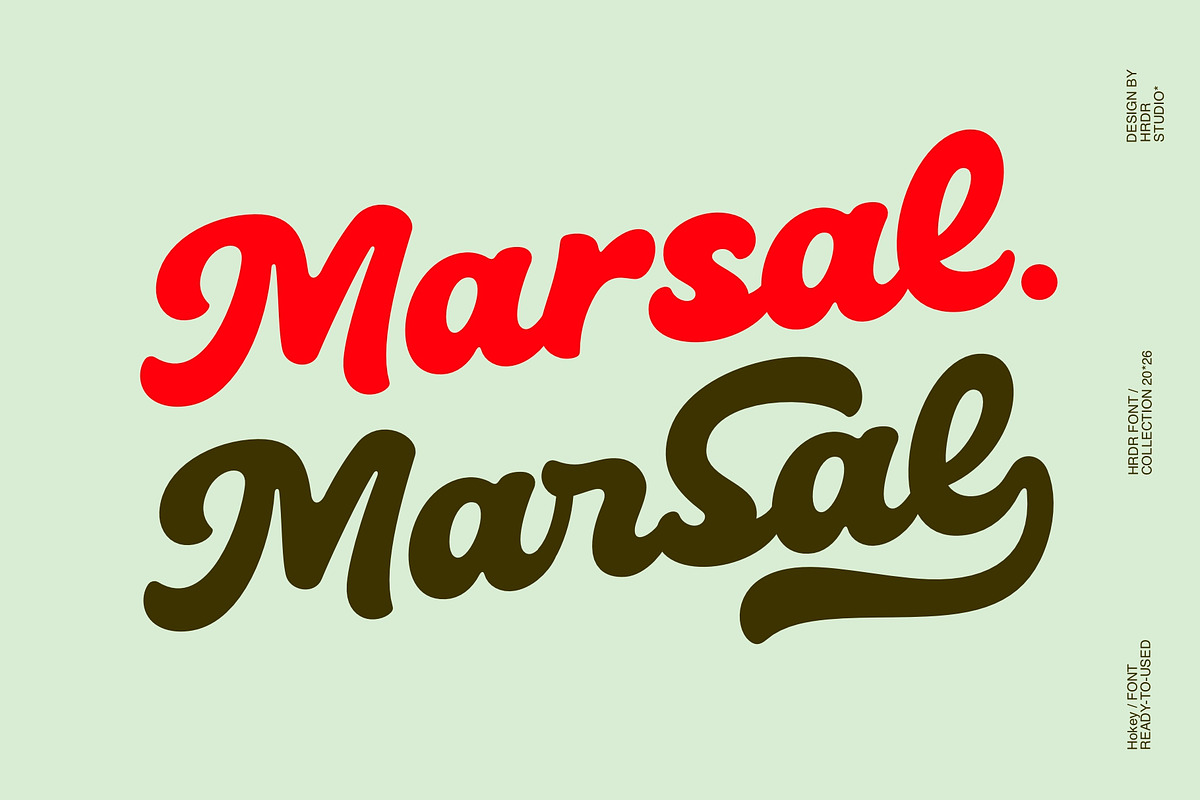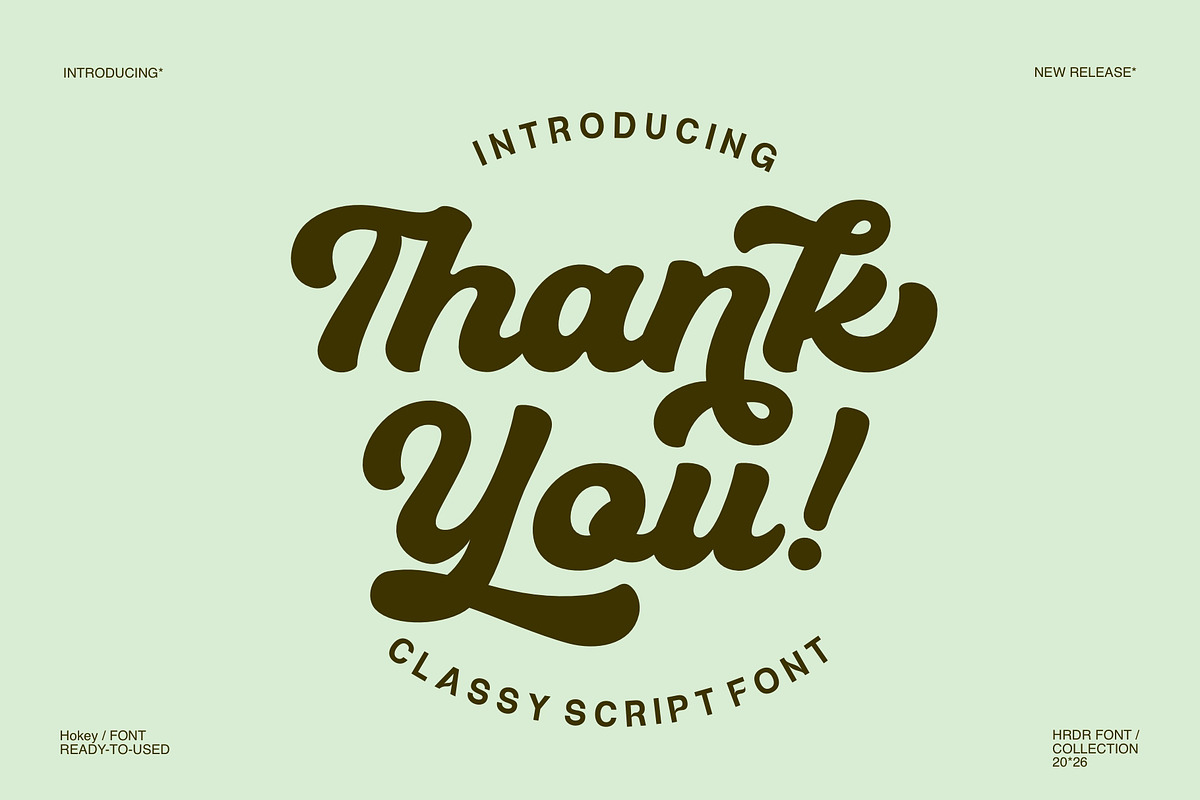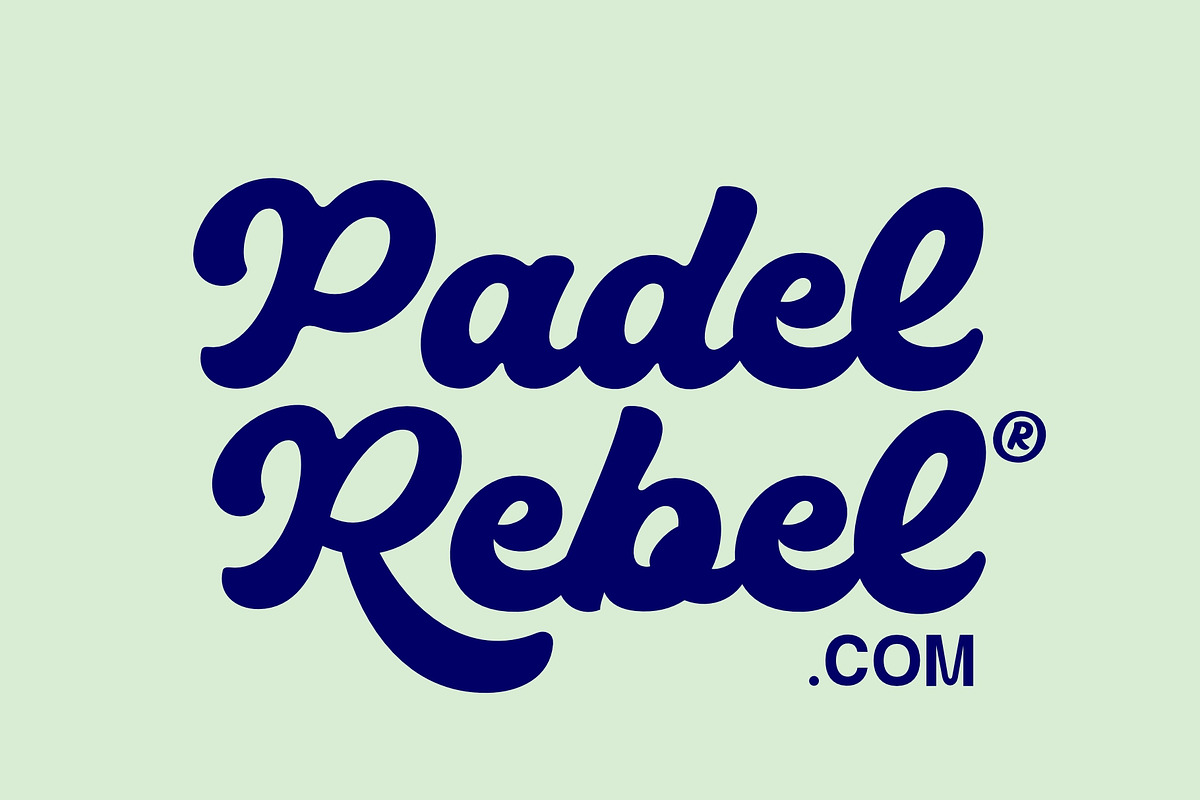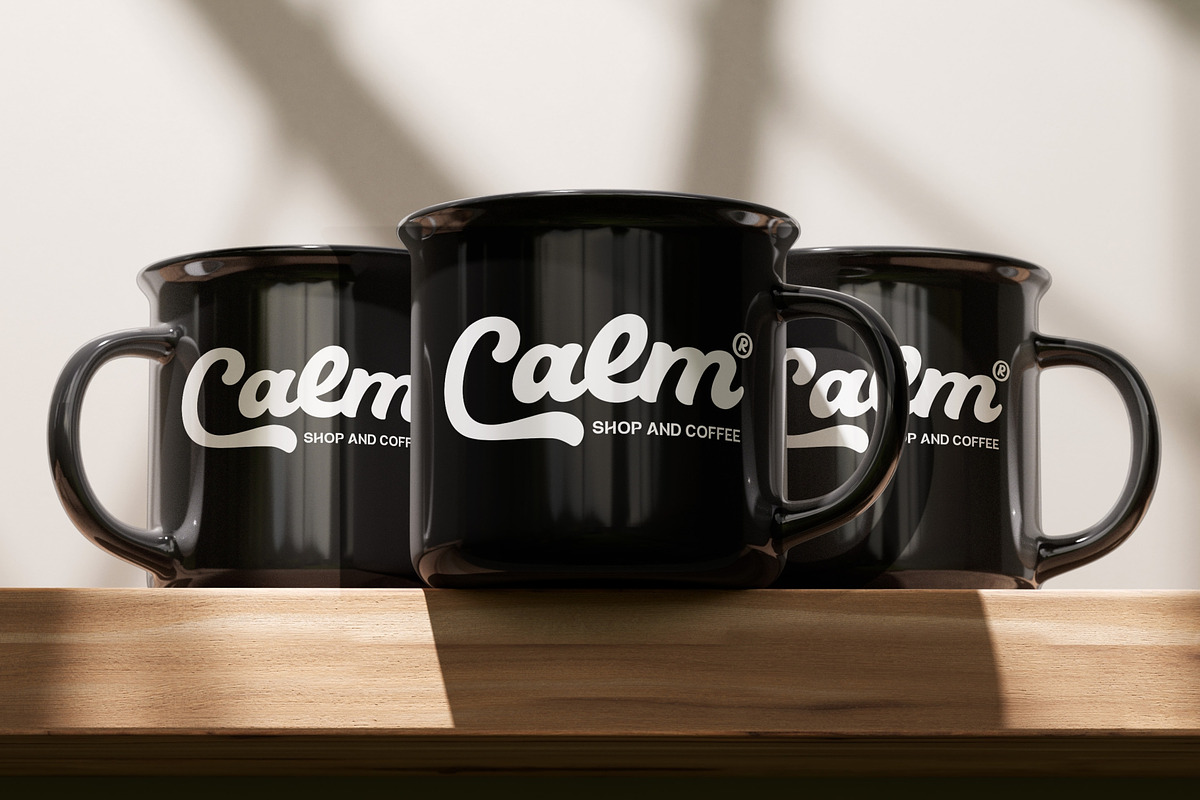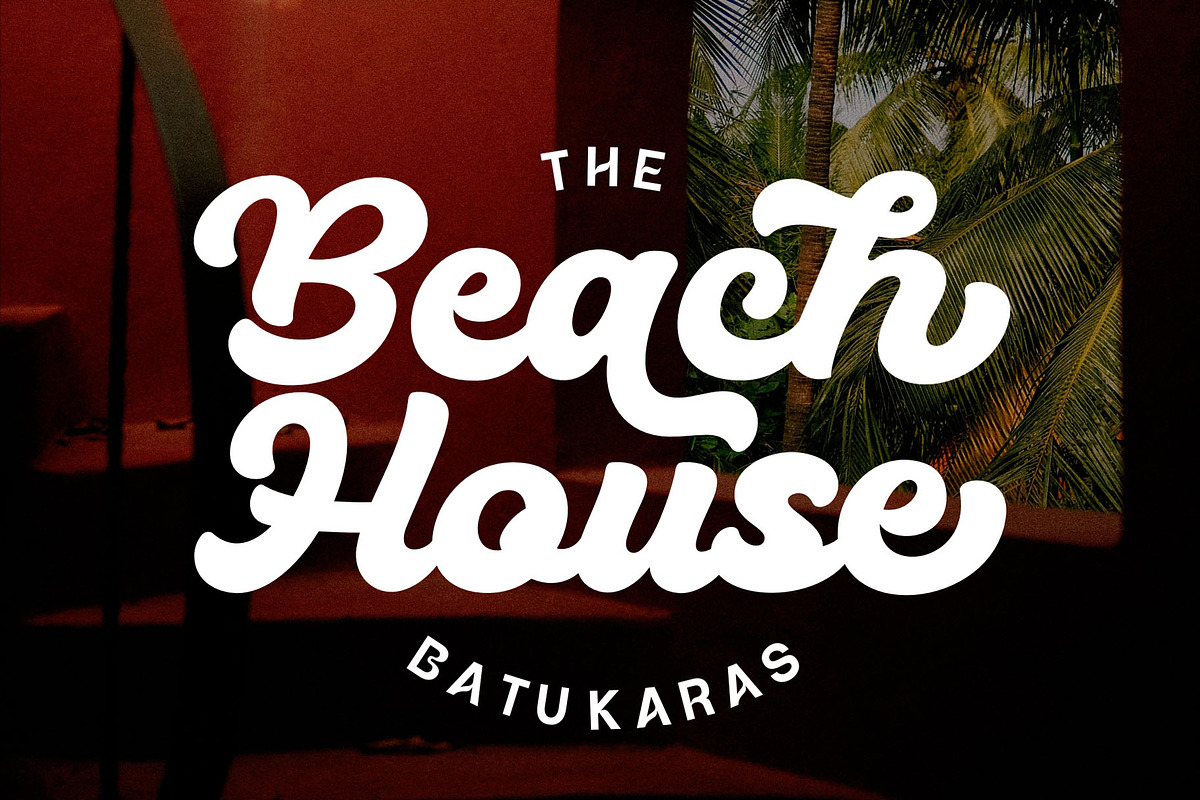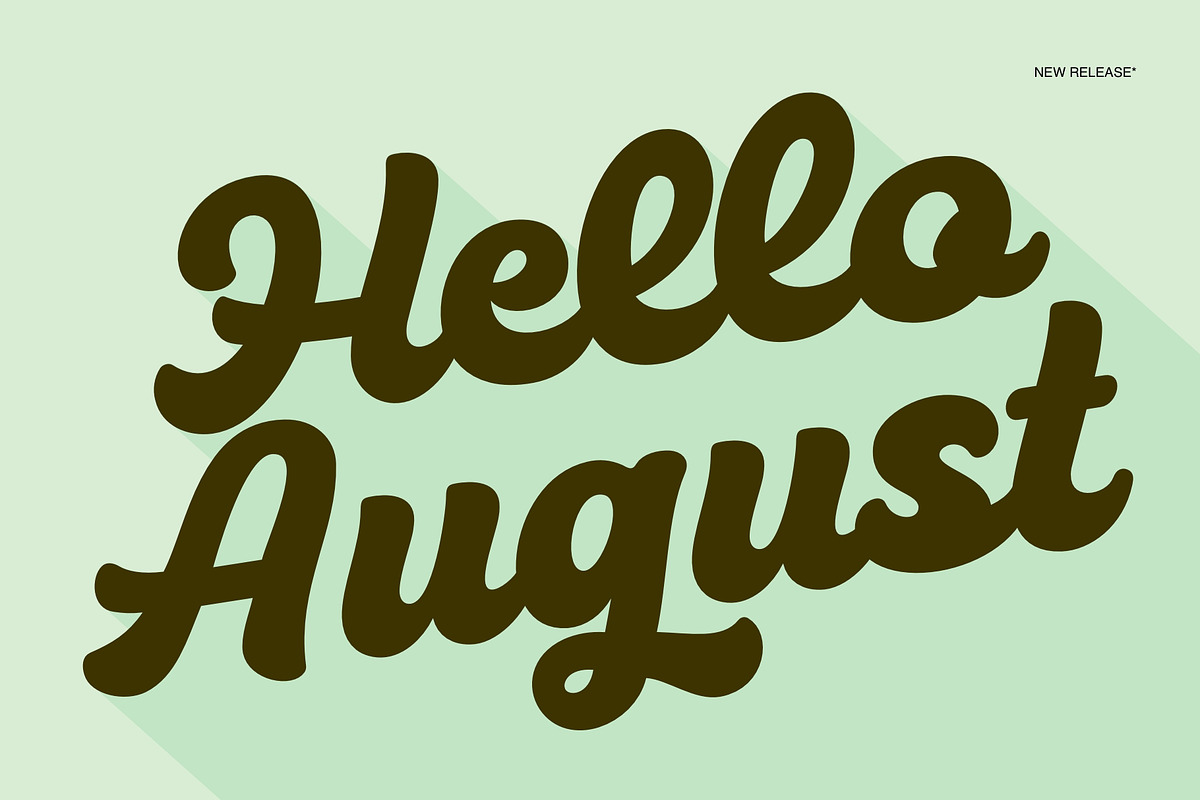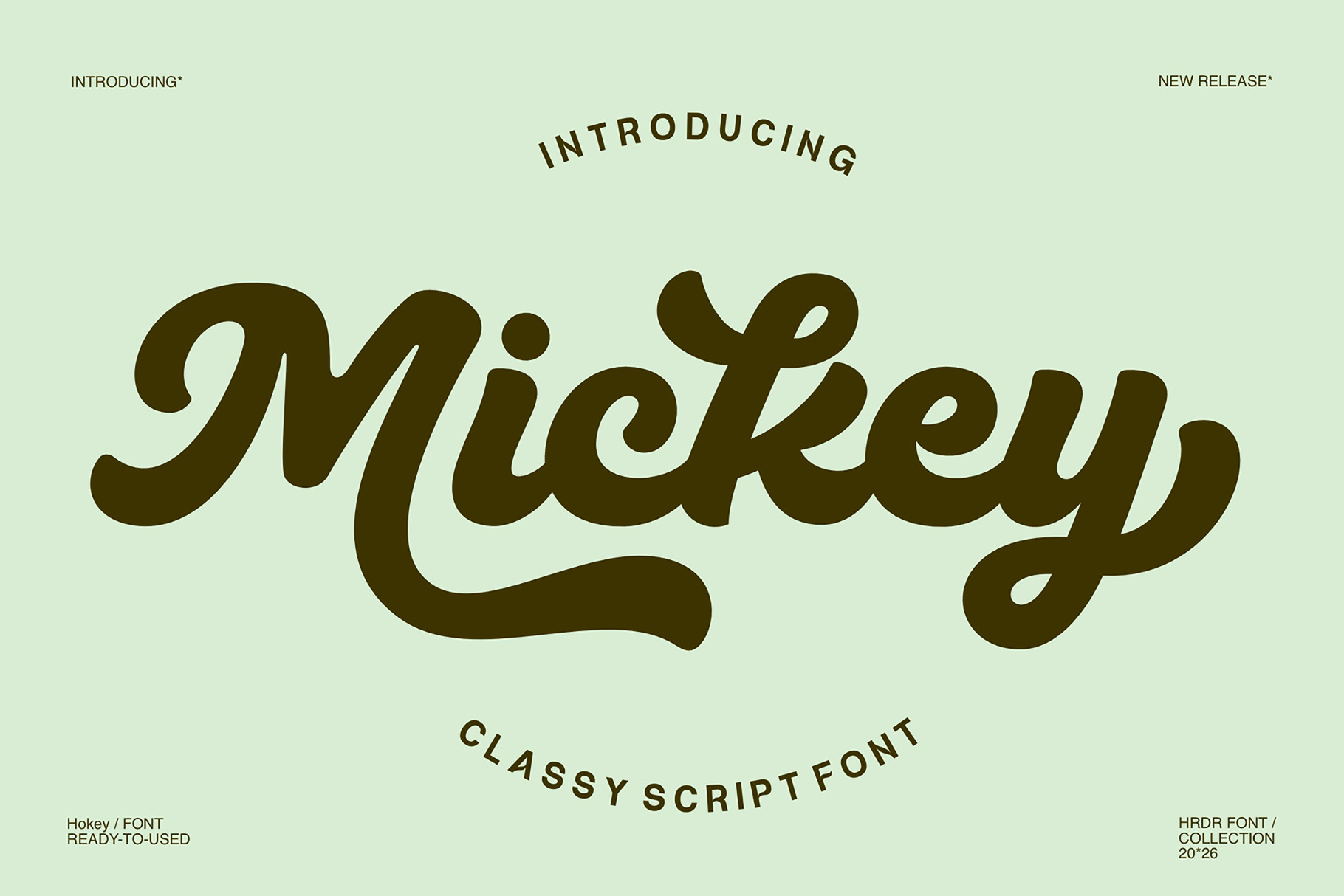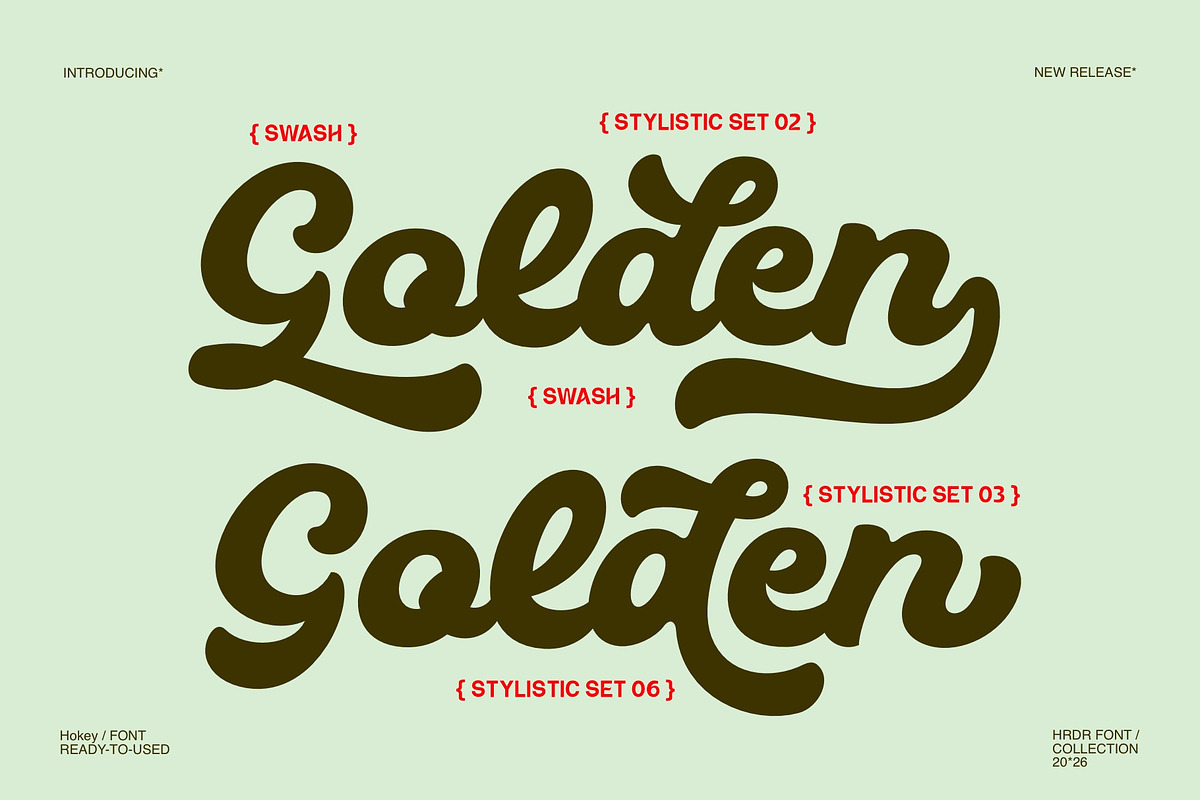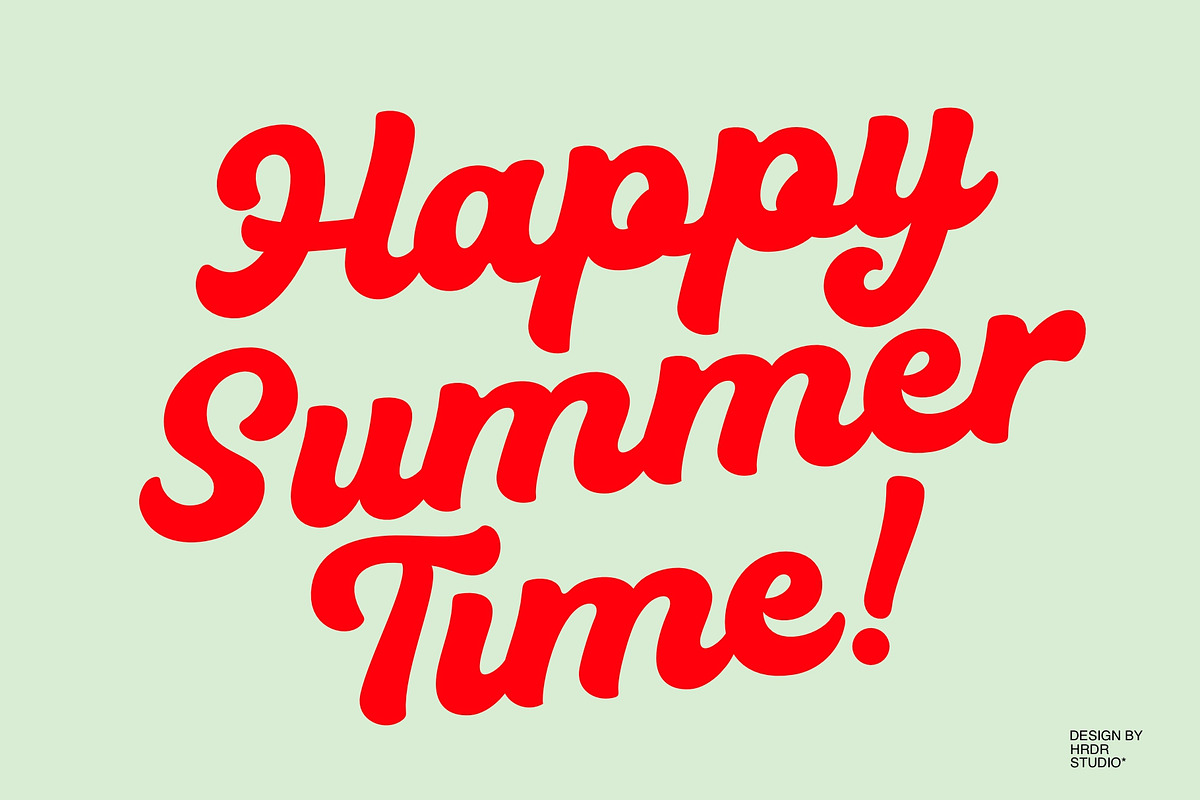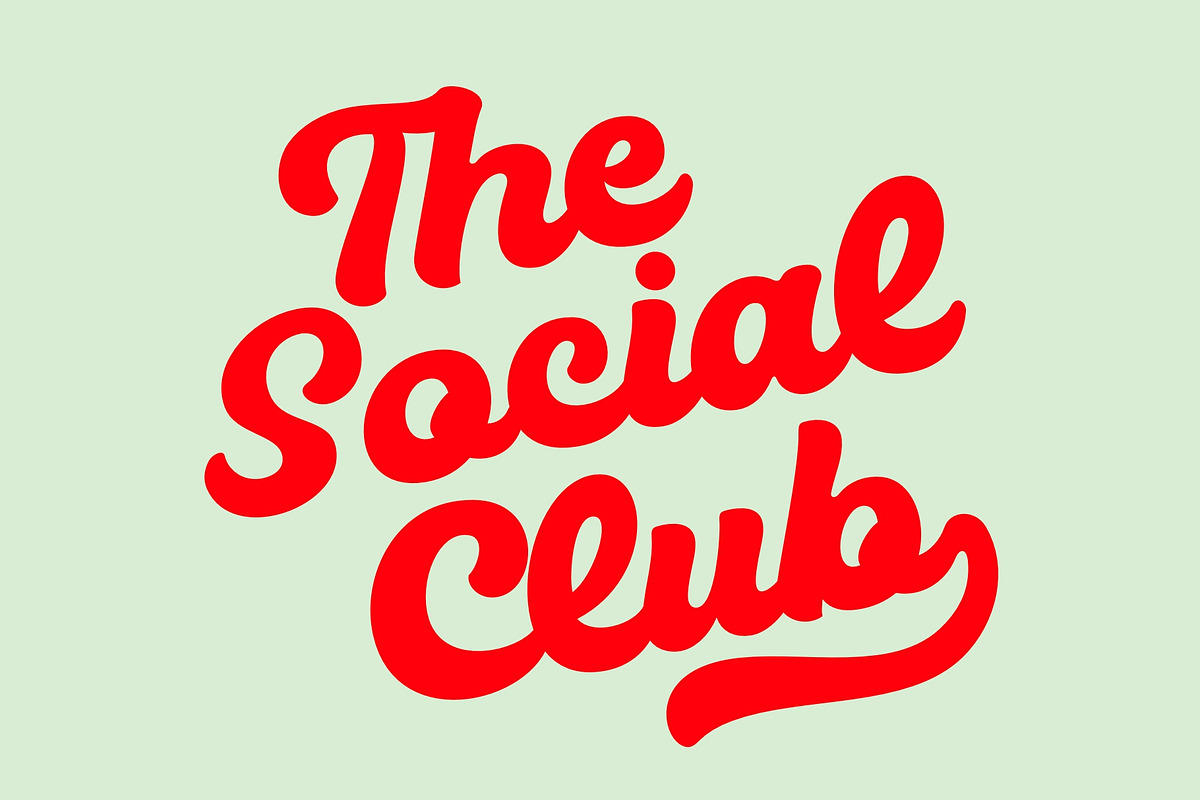
Mickey - Classy Script Font
Mickey elegance to any design. Its graceful and classy style suits branding, stationery, and wedding projects, offering both professionalism and artistic flair. Use Mickey for memorable logos, sophisticated invitations, or polished product packaging to achieve a cohesive and stylish finish.
This font is also ideal for social media graphics, advertisements, posters, and photography overlays, adding a distinct character to each application. Mickey’s versatility ensures a polished look for special event promotions and product labels, providing a consistent, upscale aesthetic across platforms.
Numeric and multilingual support
Stylistic alternates (including Ss01–Ss06, swash, and ligatures)